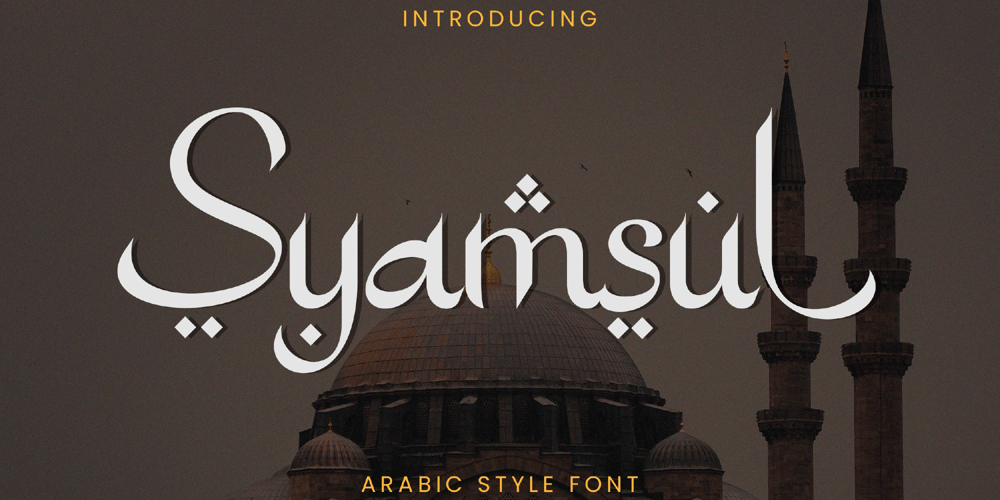
Syamsul Font Family was designed by Achmad Yani and published by Flawlessandco. Syamsul contains 1 styles and family package options. Introducing “Syamsul” – an exquisite Arabic-style font that combines elegance and functionality. Inspired by the beauty of Arabic calligraphy, Syamsul captures the essence of this ancient art form while offering a contemporary twist.There’s some connected letters and some alternates that suitable for any graphic designs such as branding materials, t-shirt, print, business cards, logo, poster, t-shirt, photography, quotes .etcThis font support for some multilingual. Also contains uppercase A-Z and lowercase a-z, alternate character, numbers 0-9, and some punctuation.If you need help, just write me! Thanks so much for checking out my shop!